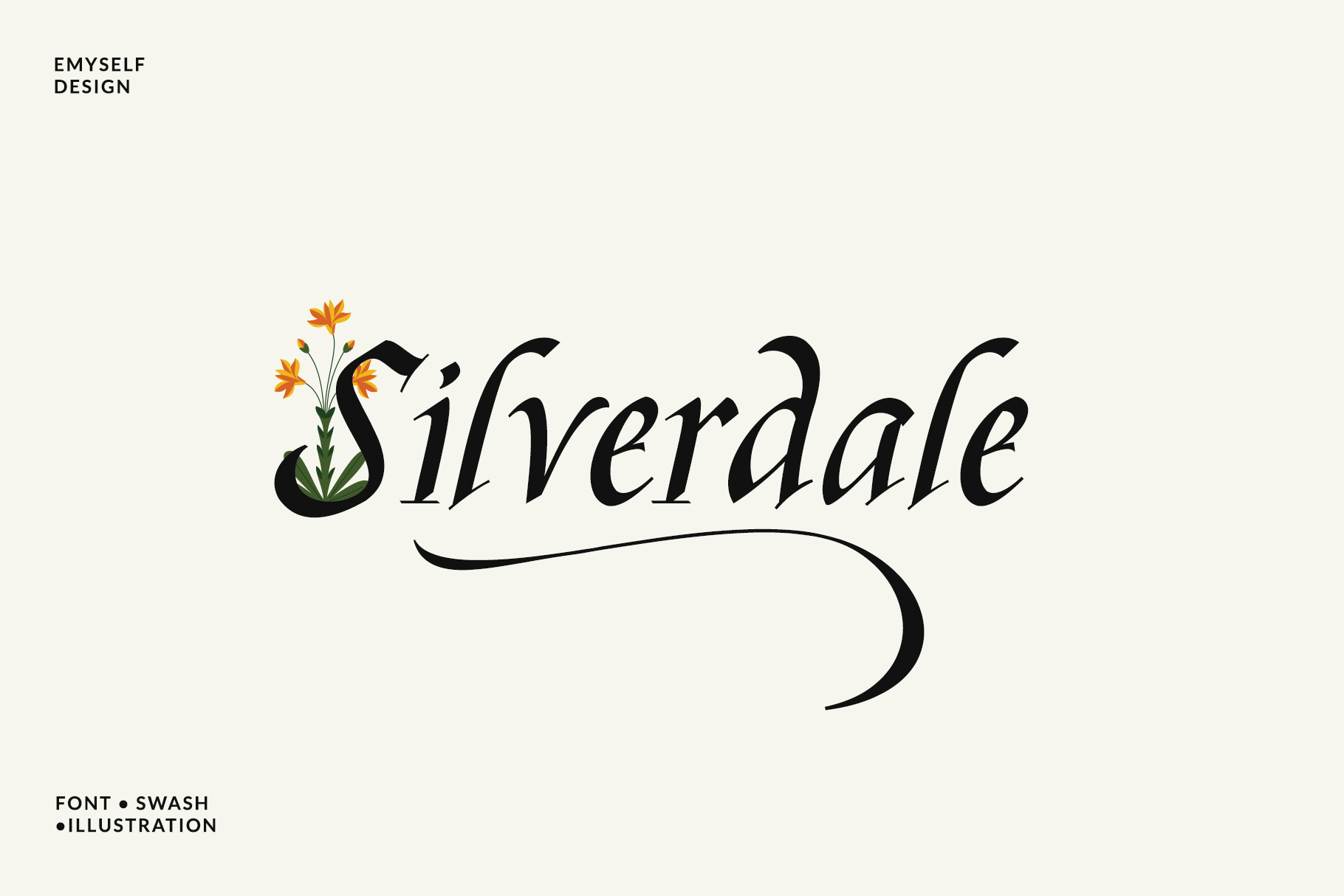
Silverdale Typeface
Silverdale is a font created from a reference to a typography book that was redesigned with different styles and adjusted for easy use. This font is elegant, classic and looks vintage. This font has 434 characters consisting of uppercase, lowercase, punctuation, ligature, multi language characters , swash and alternative characters that are equipped with PUA encode.
This font is suitable for posters, cards, branding, apparel design, and other design needs.
Featured :
- Alternative character
- multi language support